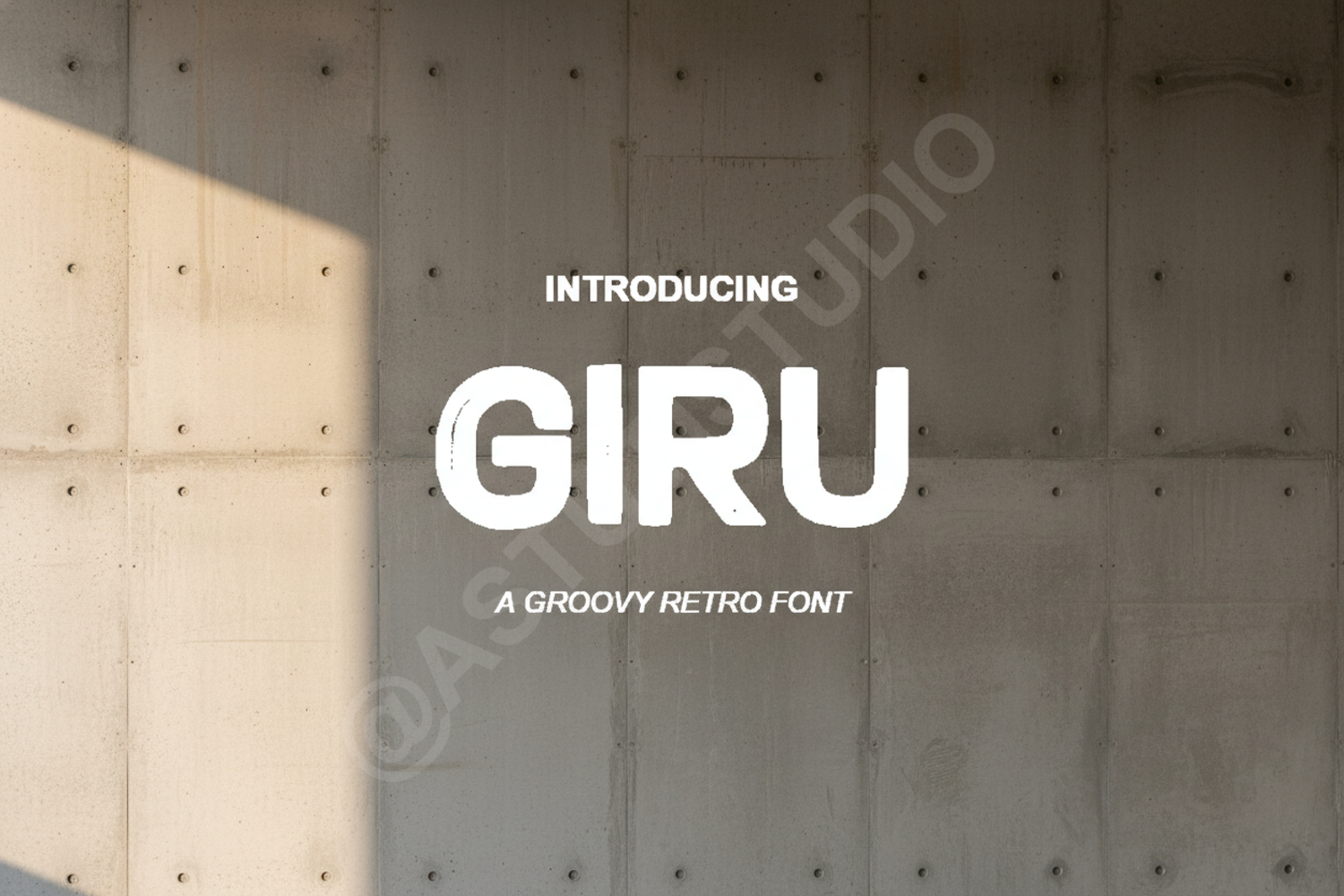
Giru - Modern Geometric Sans Serif
Giru
Introducing Giru, a premium geometric sans-serif typeface crafted for designers who demand both style and functionality. Giru balances modern aesthetics with exceptional legibility, making it a versatile powerhouse for any creative toolkit. Its clean lines and balanced proportions ensure your message remains clear and sophisticated across all platforms, from digital screens to high-quality print.